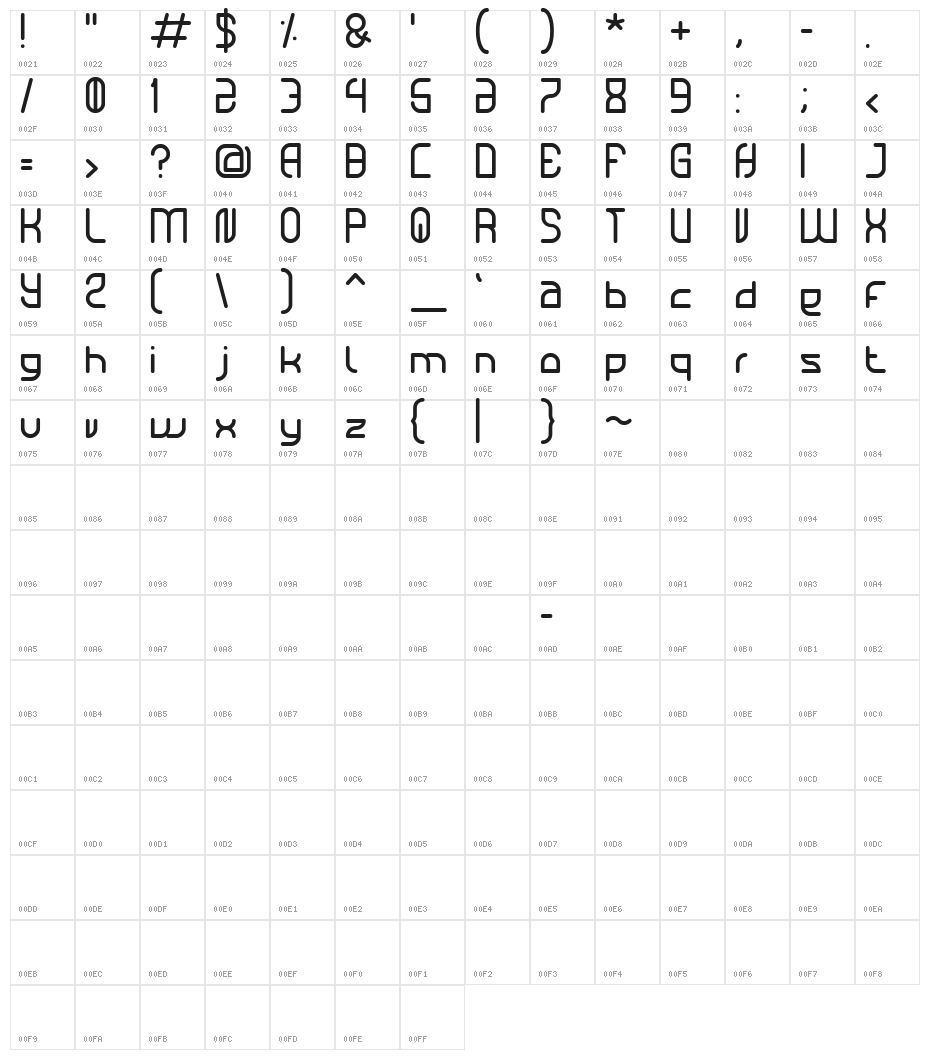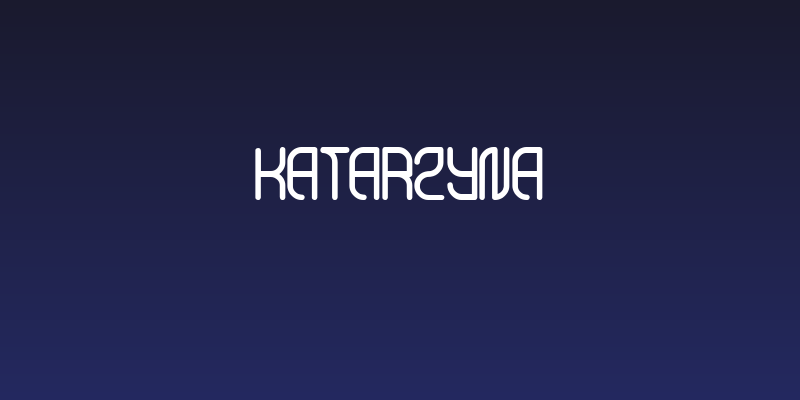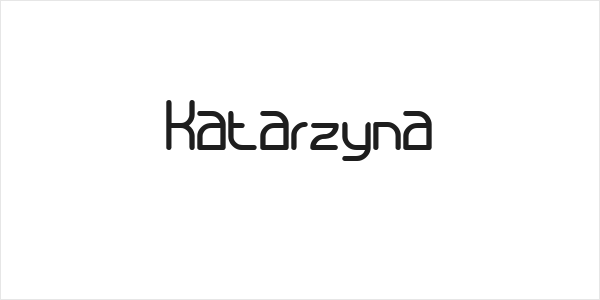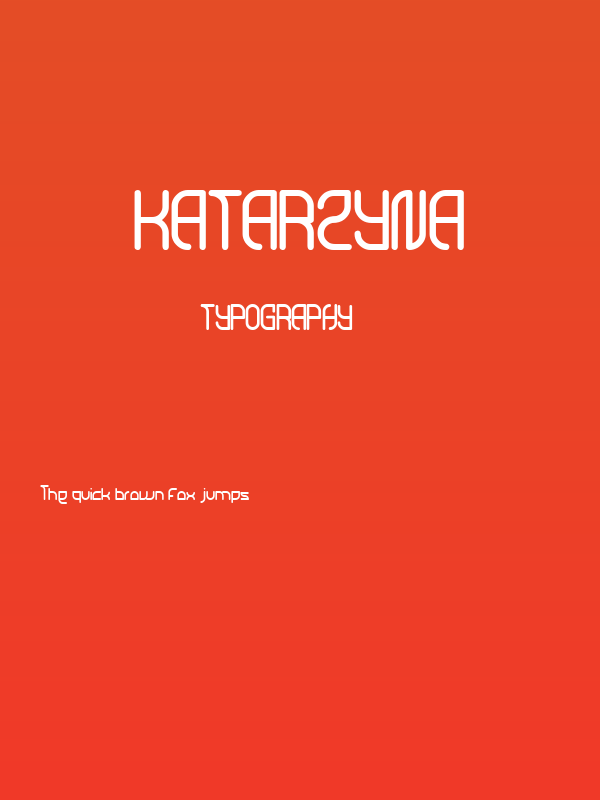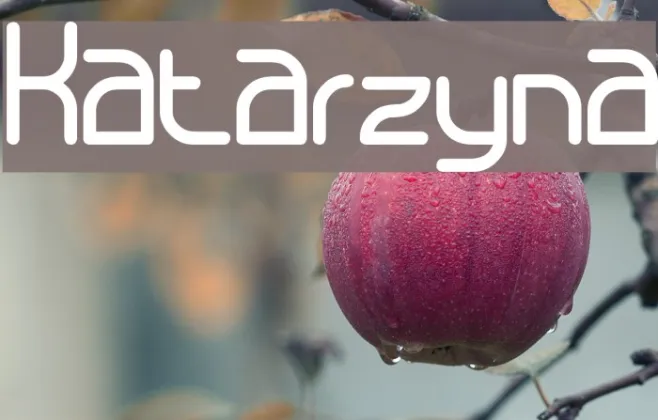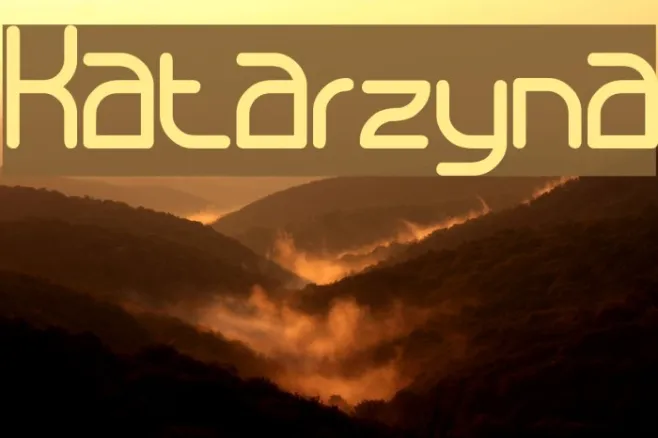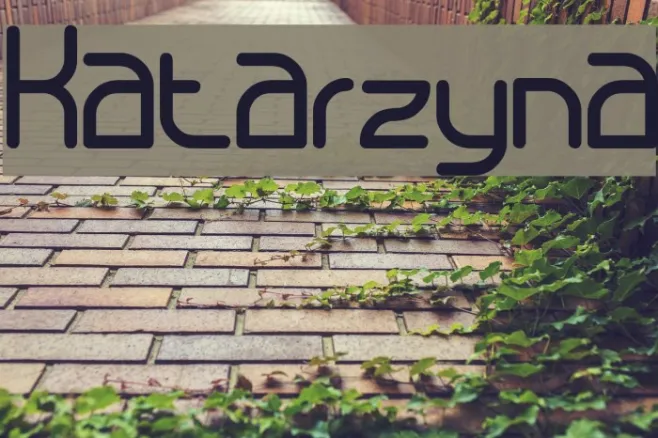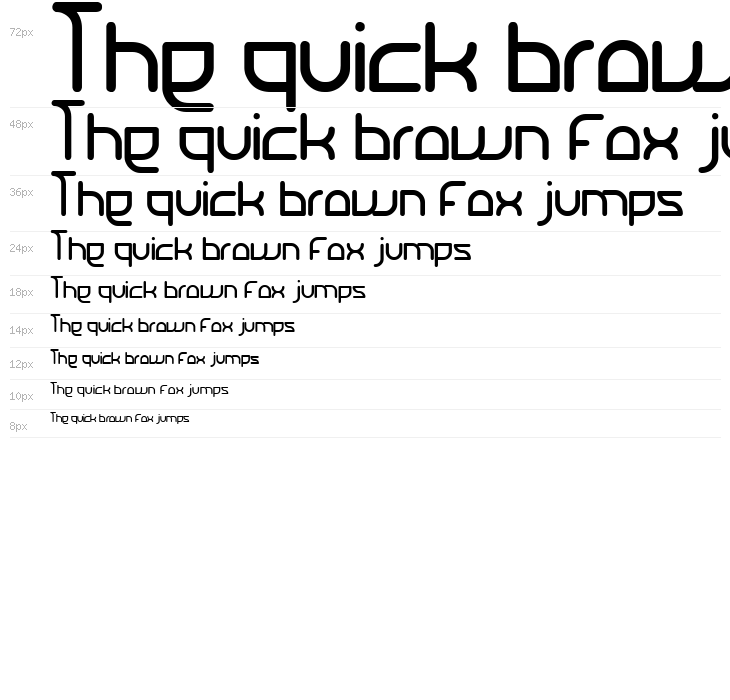
Katarzyna Font
Katarzyna Description
This font features a modern, geometric design with rounded edges and a clean, futuristic appearance. The characters are constructed with consistent line thickness, giving it a uniform and balanced look. The uppercase and lowercase letters maintain a cohesive style, with the uppercase being slightly more angular. The numerals and special characters follow the same design principles, ensuring a harmonious overall appearance. This font's unique style makes it stand out, while still being legible and versatile for various applications.
KATARZYNA UPPERCASE
KATARZYNA LOWERCASE
KATARZYNA OTHER CHARS
| Use Case | Headlines, Logos, Digital Interfaces |
| Proposed Projects | Ideal for tech branding, futuristic designs, digital interfaces, and modern advertising. |